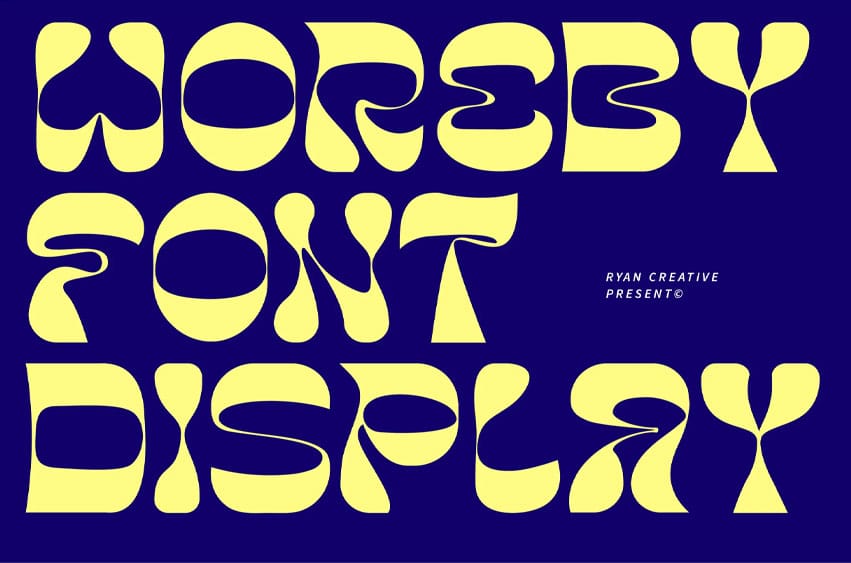
Woreby Font which has a unique looking design. This font has additional large and small arches. You can use Woreby in modern and contemporary designs, and is suitable for use in various media such as stickers, posters, covers, typography and other digital media.
- Uppercase.
- Support Foreign, Numbers and Punctuation.